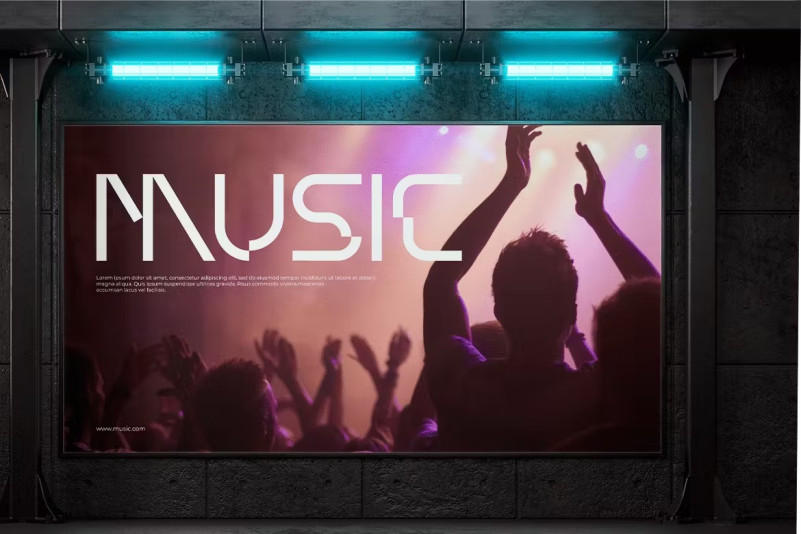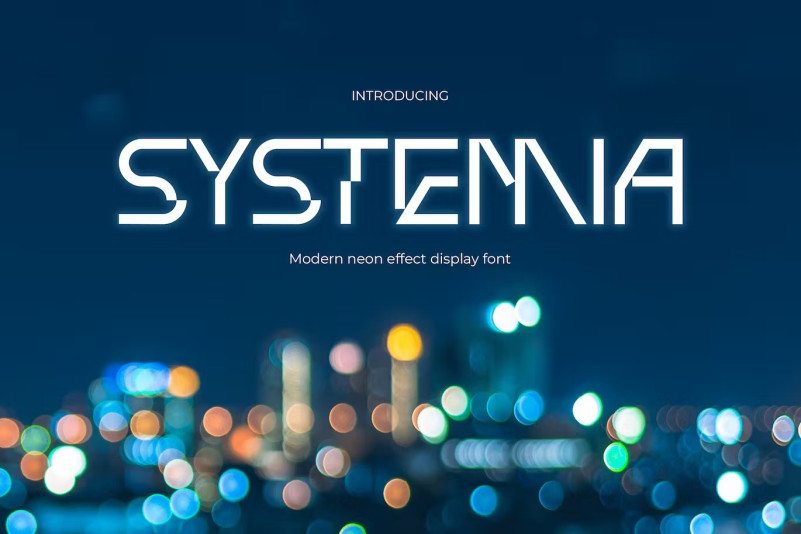
Systemia Font
Systemia font is the perfect choice for anyone in the music industry who wants to make a bold statement. With its neon-inspired design, modern look and futuristic look, Systemia is sure to electrify any design. Perfect for promotional materials, event flyers, social media posts, and more, this font will help you stand out from the crowd. Whether you are a DJ, music promoter or event organizer, Systemia is the font you need to give a new dimension to your creations.